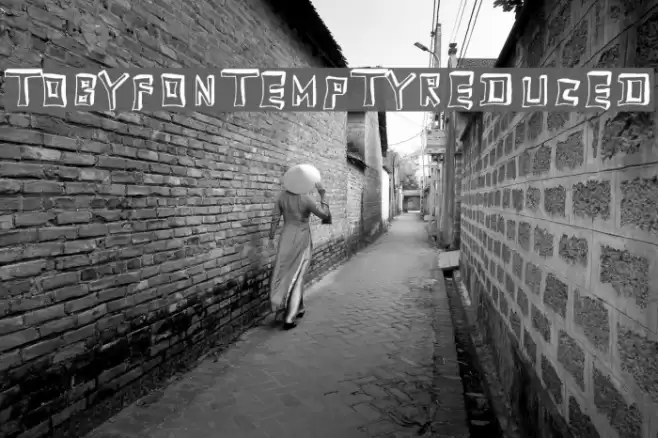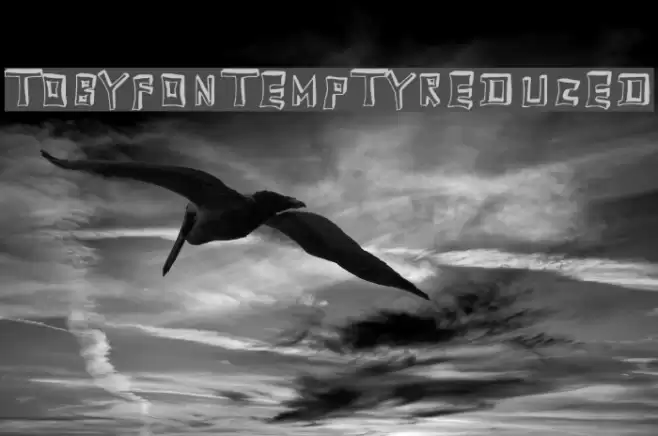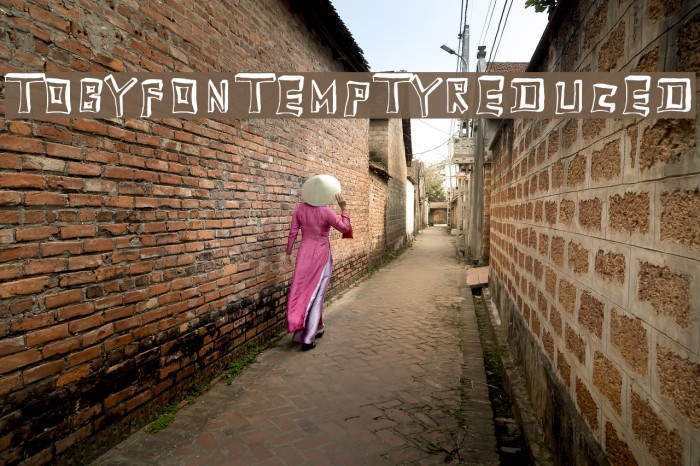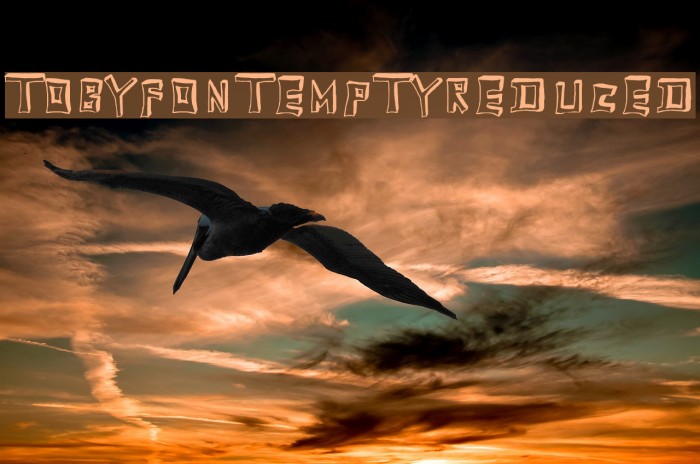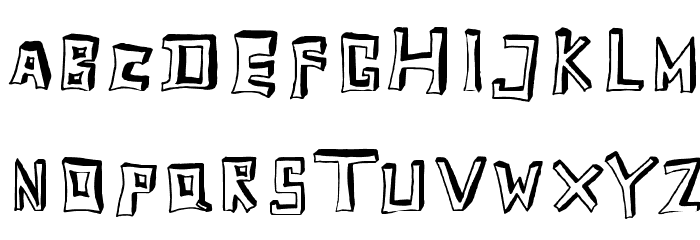
TobyFont-Emptyreduced Font
TobyFont-Emptyreduced Description
This font features a unique, hand-drawn style with an artistic flair. Each character is outlined with a bold, uneven stroke, giving it a rough, sketch-like appearance. The irregular shapes and varying line thicknesses contribute to a dynamic and playful aesthetic. The uppercase and lowercase letters maintain a consistent style, with angular forms and a slightly distorted look. The numbers and special characters follow the same design principles, ensuring a cohesive visual identity. This font stands out with its distinctive, creative expression, making it suitable for projects that require a touch of originality and artistic charm.
A hand-drawn, sketch-like font with bold, uneven strokes and a playful aesthetic from Uncategorized fonts.
- Proposed Projects: Ideal for creative projects such as posters, album covers, children's books, and artistic branding.
- Overall Style: Artistic, Playful